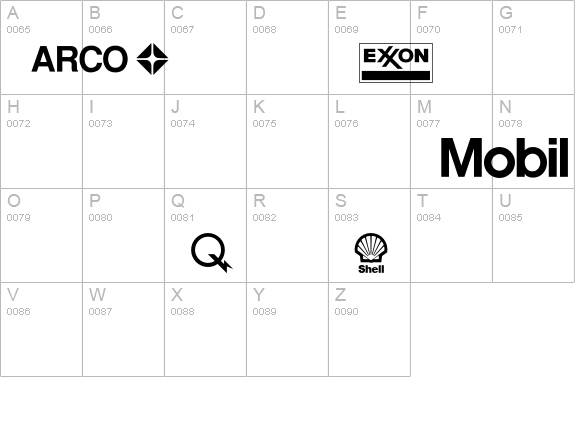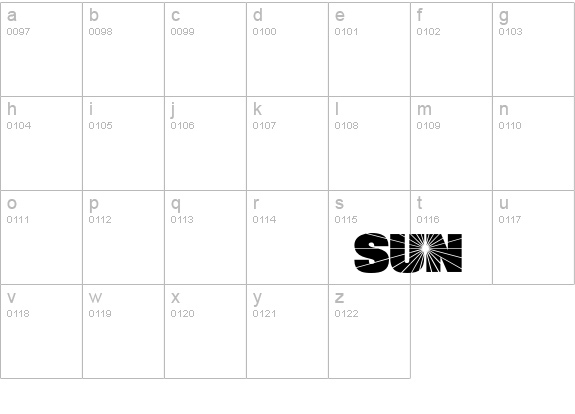
LogosEnergy Font Details
LogosEnergy font is a sleek and modern typeface that exudes energy and sophistication. With its bold lines and contemporary design, this font is perfect for branding, advertising, and creative projects. Inspired by the dynamic world of energy and innovation, LogosEnergy font captures the essence of progress and forward-thinking. The best part? LogosEnergy font is completely free to download at FontsMarket.com. Now you can add a touch of character and flair to your designs without breaking the bank. Don't miss out on this opportunity to elevate your projects with the stylish and versatile LogosEnergy font. Download it today and let your creativity shine!